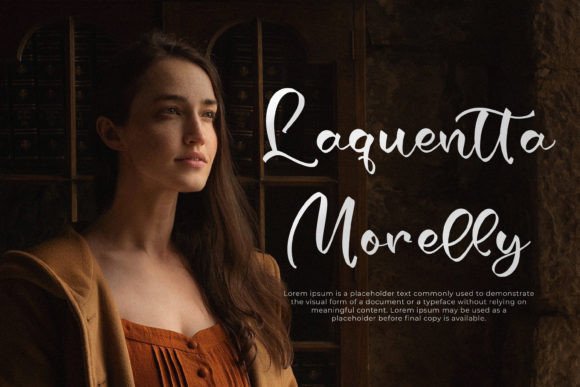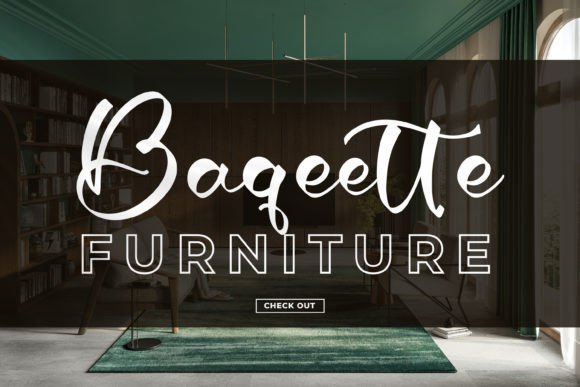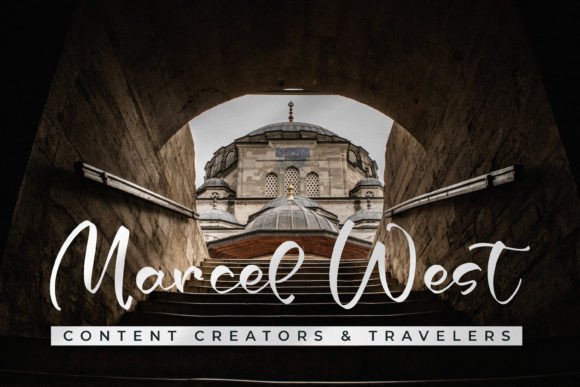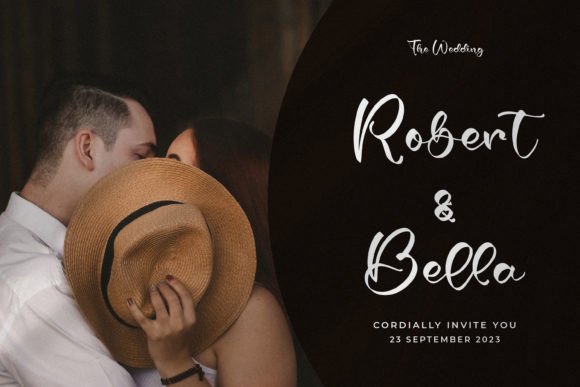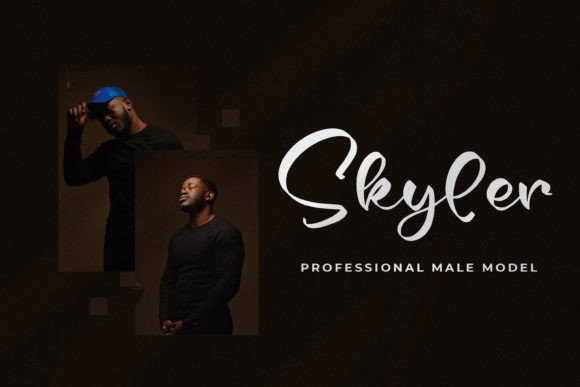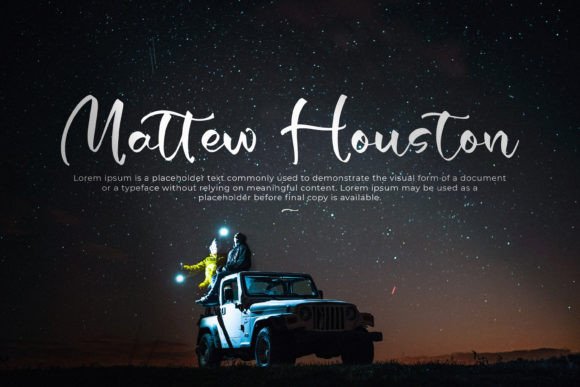
Introduction to Mosqatte Hosller Font
As a designer, you’ve likely found yourself staring at a blank canvas, desperate for the perfect font to bring your creative project to life. It’s that moment of pure inspiration when you stumble upon the perfect design resource, and everything falls into place. For many, that moment came when they discovered the stunning Mosqatte Hosller Font.
With its high-quality, elegant script design, the Mosqatte Hosller Font is a versatile and valuable addition to any designer’s toolkit. Whether you’re working on a wedding invitation, a thank you card, or a business logo, this font is sure to add a touch of sophistication and whimsy. And the best part? You can download it for free, complete with a transparent background, making it the perfect design resource for any creative project.
As a design resource, the Mosqatte Hosller Font is a game-changer. Its unique, handwritten feel is perfect for adding a personal touch to your designs, and its high-quality design ensures that it will always look professional and polished. Whether you’re a seasoned designer or just starting out, this font is a must-have for any creative project that needs a little extra something special.
Key Features of Mosqatte Hosller Font
- High-quality vector font designed for creative projects, available for free download.
- Features a transparent background, making it perfect for graphic design and digital art.
- Includes a comprehensive set of characters, including uppercase and lowercase letters, numbers, and punctuation marks.
- Unique characteristic: The font’s unique design elements, such as subtle texture and organic shapes, add a creative touch to any design project.
- Perfect for designers, artists, and writers looking for a high-quality, versatile font to enhance their creative work.
Honest Review: Mosqatte Hosller Font
I recently had the chance to work with the Mosqatte Hosller Font and I must say it’s a unique addition to any design project. The font’s high quality is evident in its crisp lines and detailed design, making it perfect for creative projects that require a touch of sophistication.
One of the standout features of this font is its transparent background, which allows for seamless integration with any design element. This makes it an excellent choice for designers who value versatility in their design resources.
- ✨ High-quality design that stands out in creative projects
- ✨ Transparent background for easy integration
- ⚠️ Limited character set, which may be a concern for longer texts
- ⚠️ Not ideal for body text, as it may be difficult to read in smaller sizes
Overall, I’m impressed with the Mosqatte Hosller Font’s potential as a design resource. While it may have some limitations, its unique design and high-quality make it a valuable addition to any creative project.
To get the most out of Mosqatte Hosller Font, experiment with different font sizes, colors, and styles. You can also combine this font with other design elements to create a unique and eye-catching design.
Common Use Cases for Mosqatte Hosller Font
The Mosqatte Hosller Font is perfect for use in a variety of creative projects, including logos, icons, graphics, presentations, and documents. Its high-quality design and transparent background make it a valuable design resource for any project.